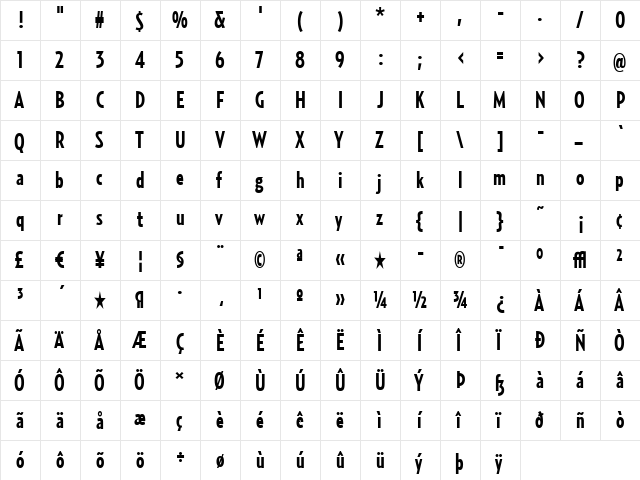
RelayComp-Bold Regular
| Designer | Cyrus Highsmith |
Design Context for RelayComp-Bold Typeface
RelayComp-Bold offers clean, dependable letterforms without strong stylistic allegiance, making it a practical choice for designers who need flexibility. The heavy weight commands attention and anchors typographic hierarchies.